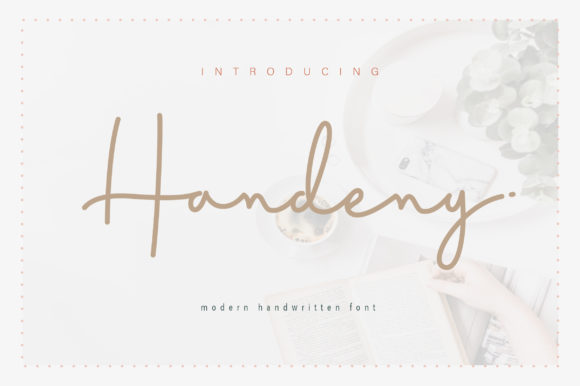
Behold Handeny Font, the epitome of grace and allure, where penmanship meets digital brilliance. This exquisite script font exudes a charm that will captivate your audience, lending an air of sophistication to every letter you craft.
Handeny Font is the perfect choice for those seeking a touch of handwritten elegance. Its fluid strokes and graceful curves evoke the beauty of a handwritten note, adding a personal touch to your designs. Whether you're creating wedding invitations that exude romance or thank you cards that convey heartfelt gratitude, Handeny Font will elevate your words with a touch of timeless charm.
But Handeny Font is more than just a beautiful script. It's a versatile workhorse that can adapt to a wide range of design needs. Its elegant lines add a touch of sophistication to logos, business cards, and any other design that calls for a touch of handwritten flair.
With Handeny Font, you'll have the power to create designs that connect with your audience on an emotional level. Its graceful curves and subtle flourishes convey a sense of warmth and authenticity, making it perfect for quotes, greeting cards, and any other design that aims to inspire or uplift.
So why settle for ordinary fonts when you can embrace the extraordinary Handeny Font? Its timeless beauty and unmatched versatility will transform your designs, adding a touch of handwritten charm and sophistication that will leave a lasting impression on your audience.